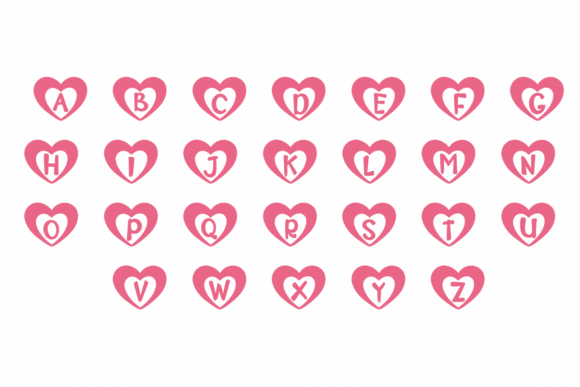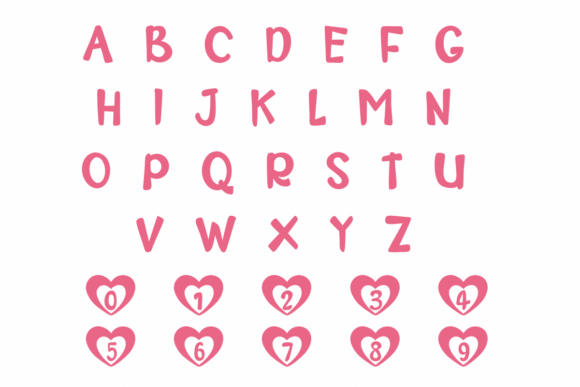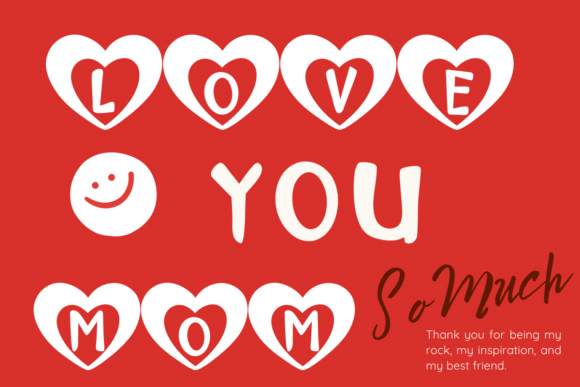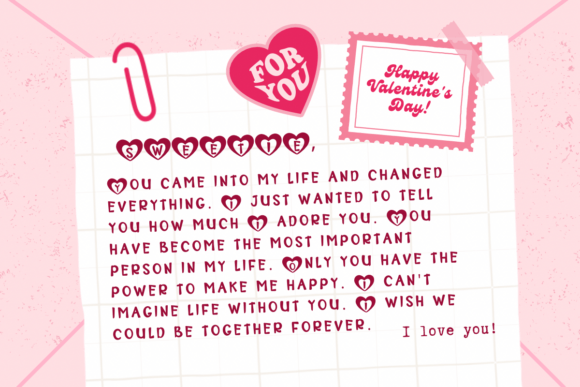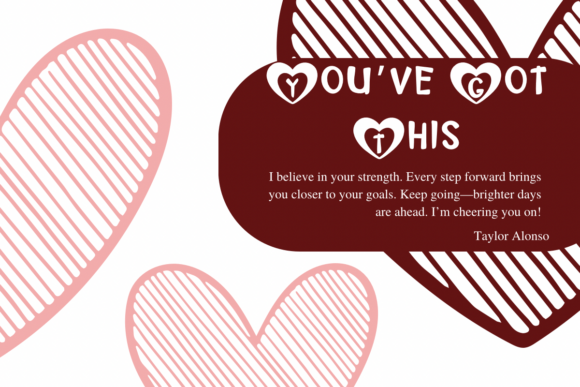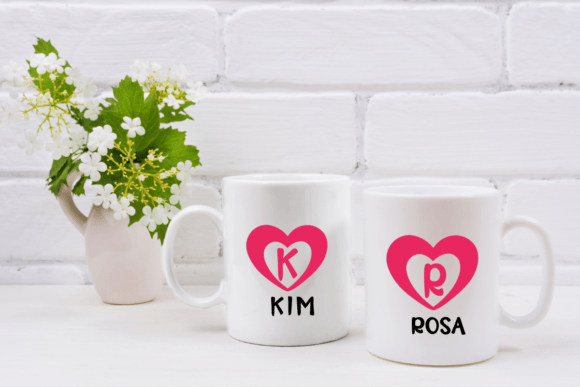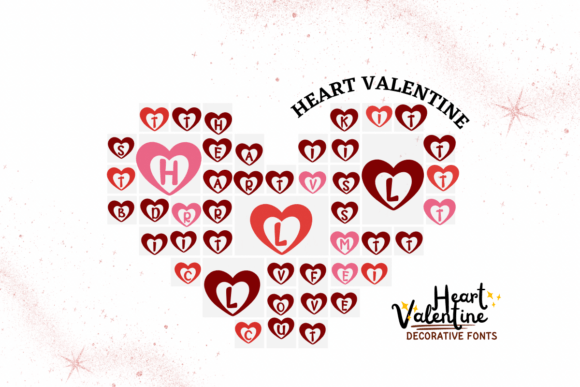
Introducing Heart Valentine Font: The Perfect Decorative Font for Your Creative Projects
Are you looking for a unique and playful font to add a touch of love and warmth to your designs? Look no further than Heart Valentine Font! This decorative font is perfect for crafters, designers, and anyone who wants to add a romantic flair to their projects. In this article, we’ll explore the features and uses of Heart Valentine Font, and show you how to make the most of this beautiful font.
What is Heart Valentine Font?
Heart Valentine Font is a decorative font designed to capture the spirit of love and romance. With its playful and whimsical design, this font is perfect for creating beautiful and eye-catching designs. The font features heart-shaped letters and symbols, making it ideal for Valentine’s Day, anniversaries, weddings, and other special occasions.
Uses of Heart Valentine Font
Heart Valentine Font is a versatile font that can be used for a wide range of creative projects. Here are some ideas to get you started:
- Note-taking and journaling: Add a touch of love and personality to your notes and journals with Heart Valentine Font. Perfect for writing love letters, gratitude journals, or daily diaries.
- Greeting cards and invitations: Create beautiful and unique greeting cards and invitations for special occasions like Valentine’s Day, weddings, and anniversaries.
- Banners and signs: Use Heart Valentine Font to create eye-catching banners and signs for parties, events, and special occasions.
- Social media posts: Add a touch of love and whimsy to your social media posts with Heart Valentine Font. Perfect for Instagram, Facebook, and Twitter.
- Mugs, cards, and stationery: Create beautiful and unique designs for mugs, cards, and stationery with Heart Valentine Font.
- T-shirts and apparel: Use Heart Valentine Font to create custom t-shirts and apparel for special occasions or as a fun way to express yourself.
Tips for Using Heart Valentine Font
Here are some tips to help you make the most of Heart Valentine Font:
- Mix and match: Combine Heart Valentine Font with other fonts to create a unique and eye-catching design.
- Experiment with colors: Try out different colors and color combinations to add depth and interest to your designs.
- Add graphics and images: Use Heart Valentine Font in combination with graphics and images to create beautiful and visually appealing designs.
- Keep it simple: Don’t be afraid to keep your design simple and elegant. Heart Valentine Font is beautiful on its own, so let it shine!
Why Choose Heart Valentine Font?
Here are just a few reasons why Heart Valentine Font is a great choice for your creative projects:
- Unique and playful design: Heart Valentine Font features a unique and playful design that’s sure to capture the attention of your audience.
- Versatile: Heart Valentine Font can be used for a wide range of creative projects, from note-taking and journaling to designing banners and social media posts.
- Romantic and whimsical: Heart Valentine Font is perfect for adding a touch of love and romance to your designs.
Heart Valentine Font is a beautiful and versatile decorative font that’s perfect for crafters, designers, and anyone who wants to add a touch of love and romance to their creative projects. With its unique and playful design, Heart Valentine Font is sure to capture the attention of your audience and add a touch of whimsy to your designs. So why wait? Download Heart Valentine Font today and start creating beautiful and eye-catching designs that will make your heart skip a beat!